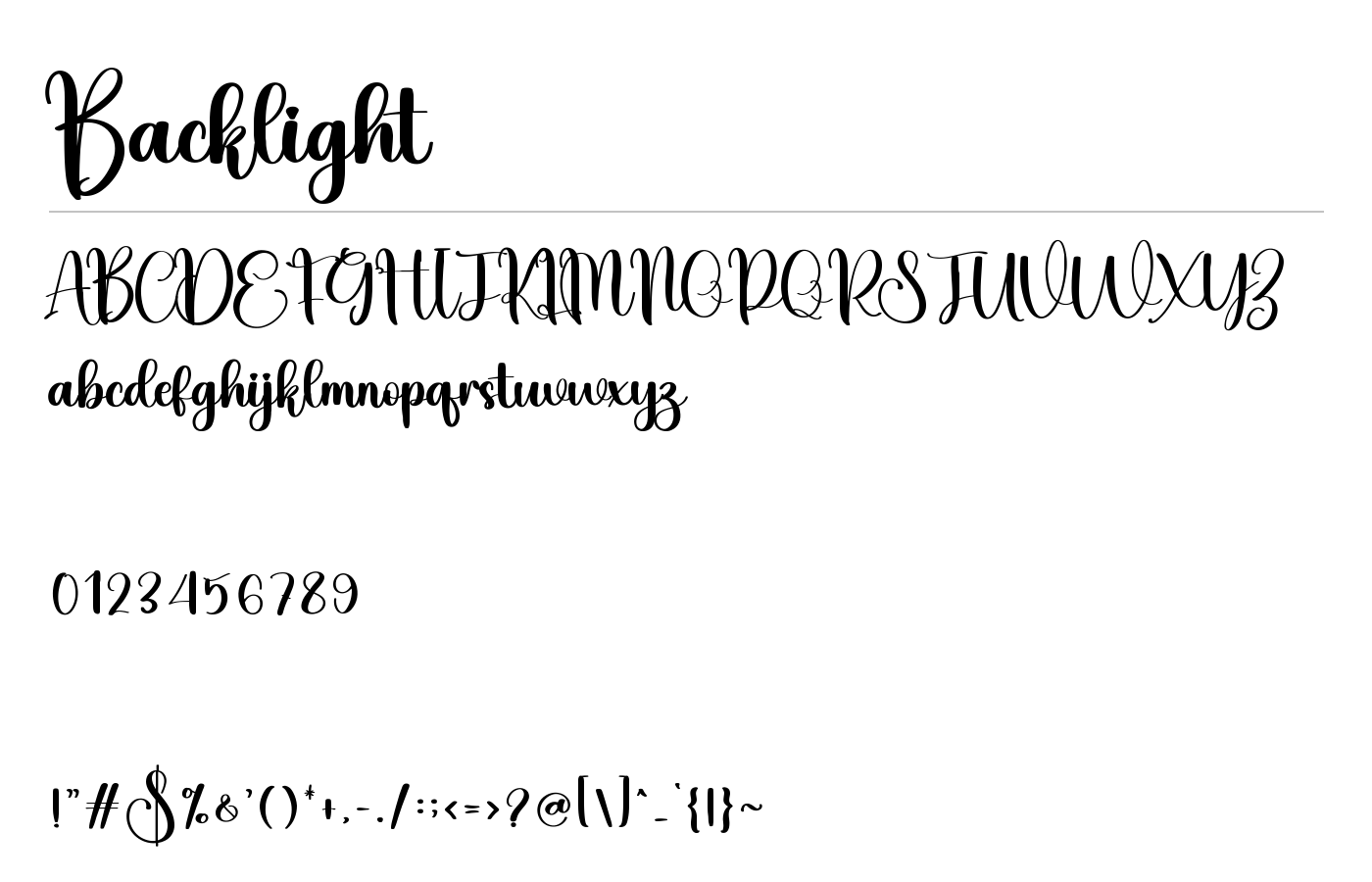
Backlight Font is a playful and elegant script typeface with a lively, handcrafted feel. Its high contrast between thick and thin strokes, combined with unique swirls and loops in the uppercase letters, adds a sense of charm and creativity. This font works beautifully for invitations, branding, and any design that aims to convey warmth, personality, and whimsy.
Backlight Font